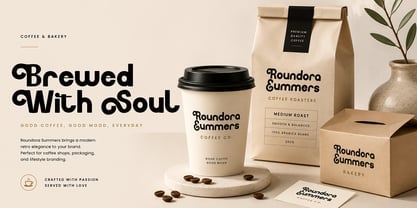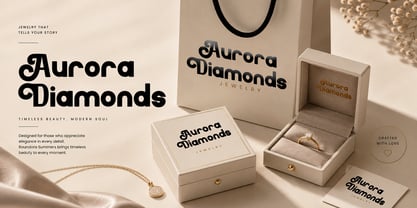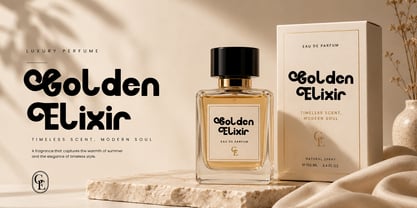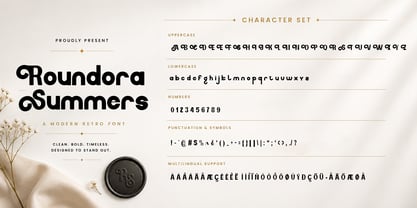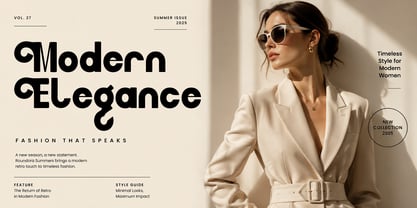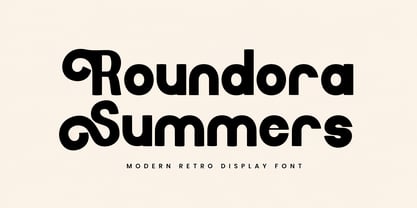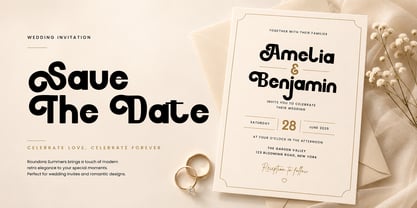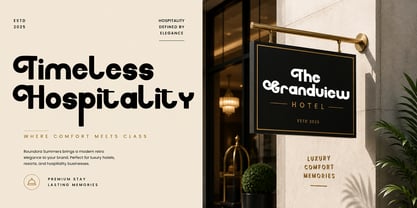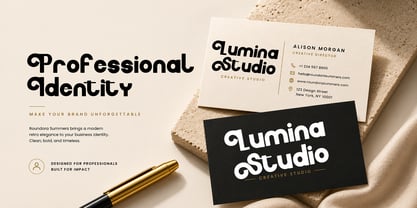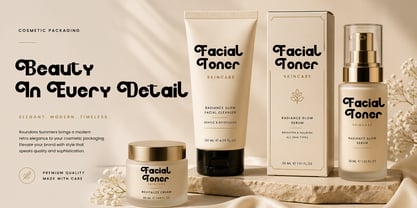
Roundora Summers
by Shape Studio
The Roundora Summers Font Family was designed by Teuku Saifullah and published by Shape Studio. Roundora Summers contains 3 styles and family package options. More about this family
Roundora Summers is a bold modern retro display font with soft rounded curves and playful vintage-inspired letterforms. Designed to make a strong visual impact, this typeface blends nostalgic 70s aesthetics with a clean contemporary feel. Its chunky shapes, smooth terminals, and distinctive personality make it perfect for eye-catching branding, logos, packaging, posters, headlines, apparel, social media graphics, and editorial designs.
Whether you're creating a retro-inspired identity or adding warmth and character to modern projects, Roundora Summers delivers a unique and memorable look. The font is ideal for creative professionals seeking a bold display typeface that stands out while remaining highly readable.
Perfect for:
• Logo Design
• Branding & Identity
• Packaging Design
• Posters & Headlines
• Fashion Branding
• Beauty & Cosmetics
• Café & Restaurant Branding
• Music Album Covers
• Social Media Graphics
• Website Headers
• Merchandise
• Stickers & Labels
• Vintage-Inspired Projects
• Editorial Layouts
• Creative Advertising
Features:
• Uppercase & Lowercase
• Numbers & Punctuation
• Multilingual Support
Designers: Teuku Saifullah
Foundry: Shape Studio